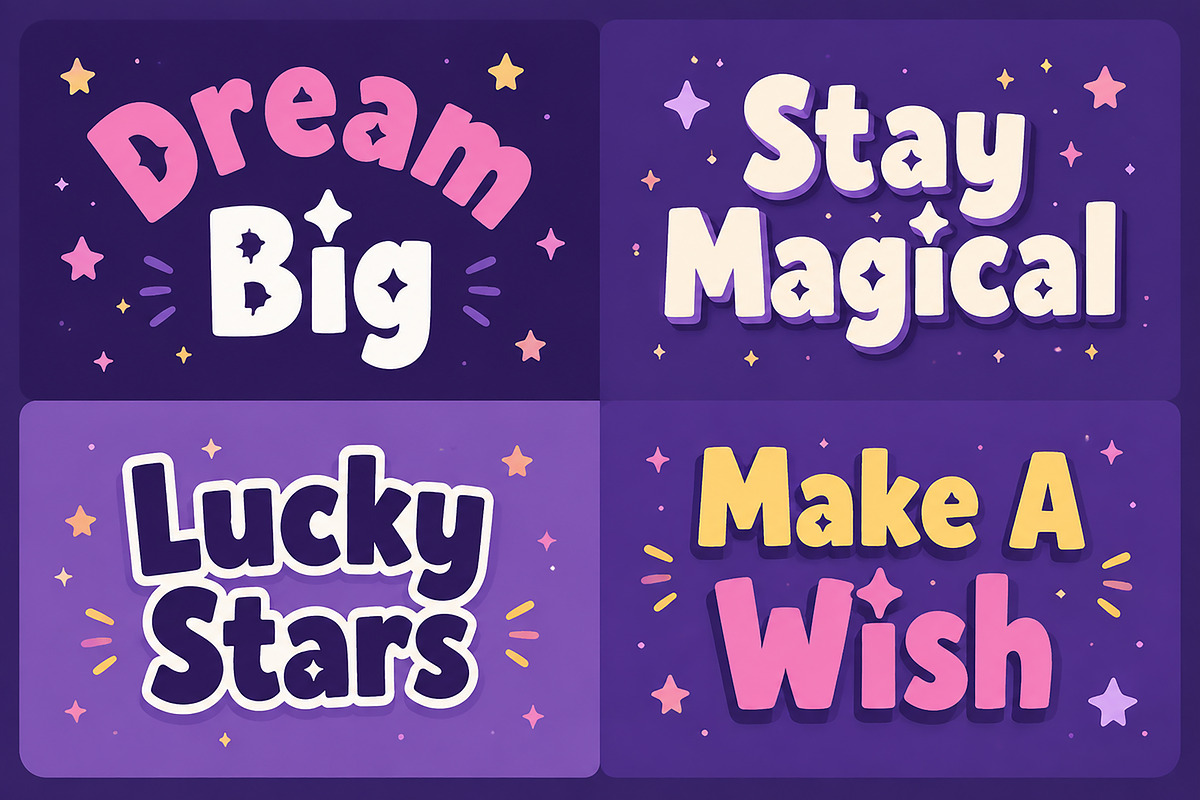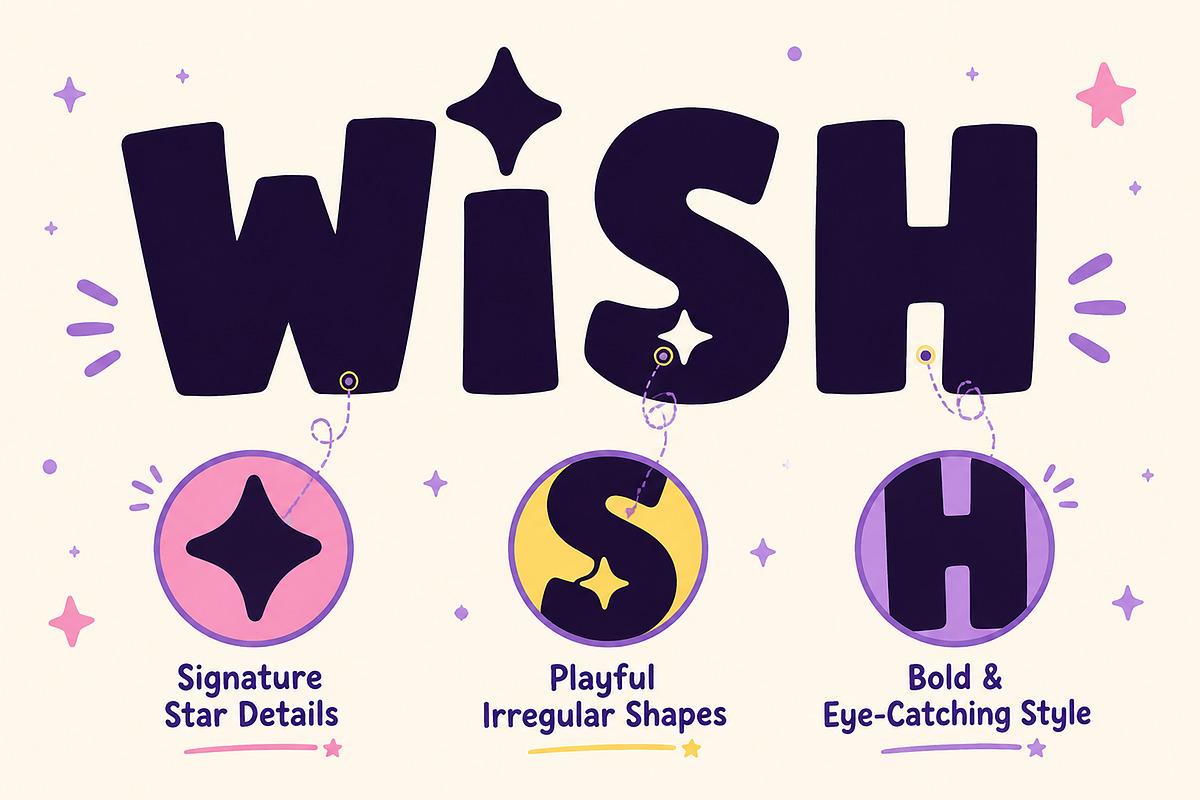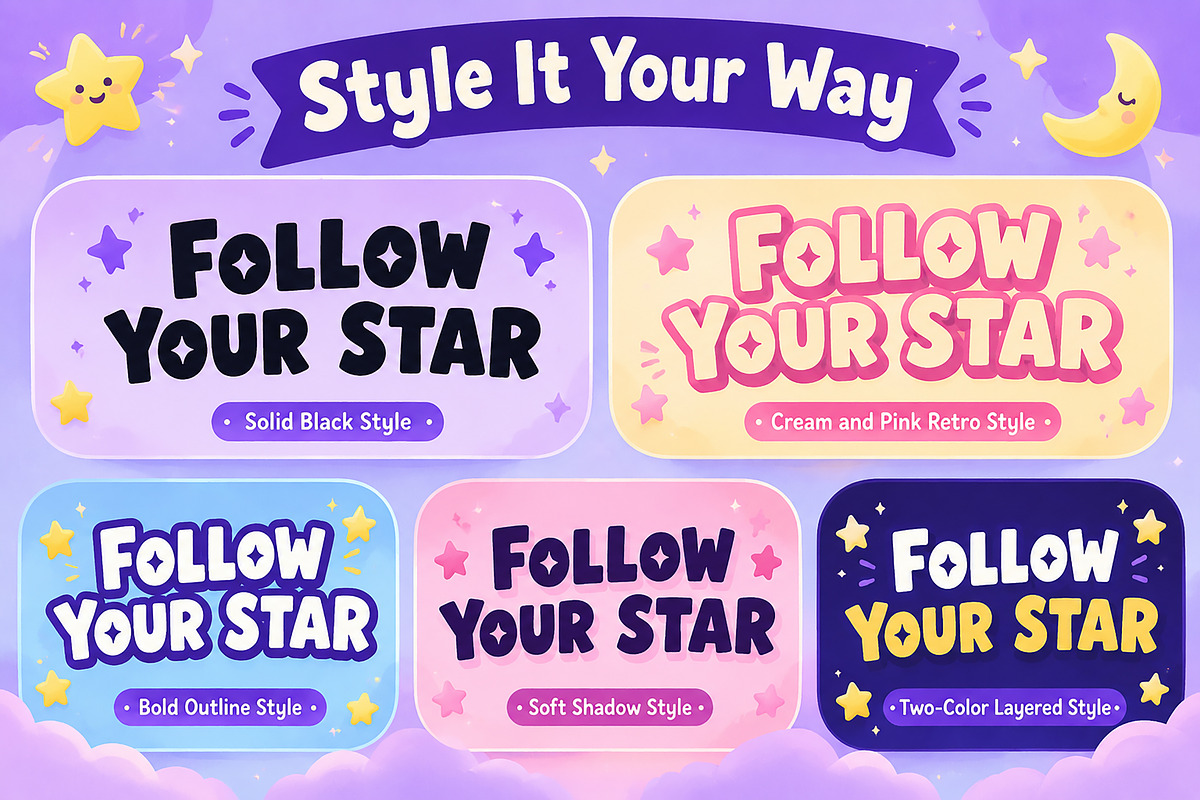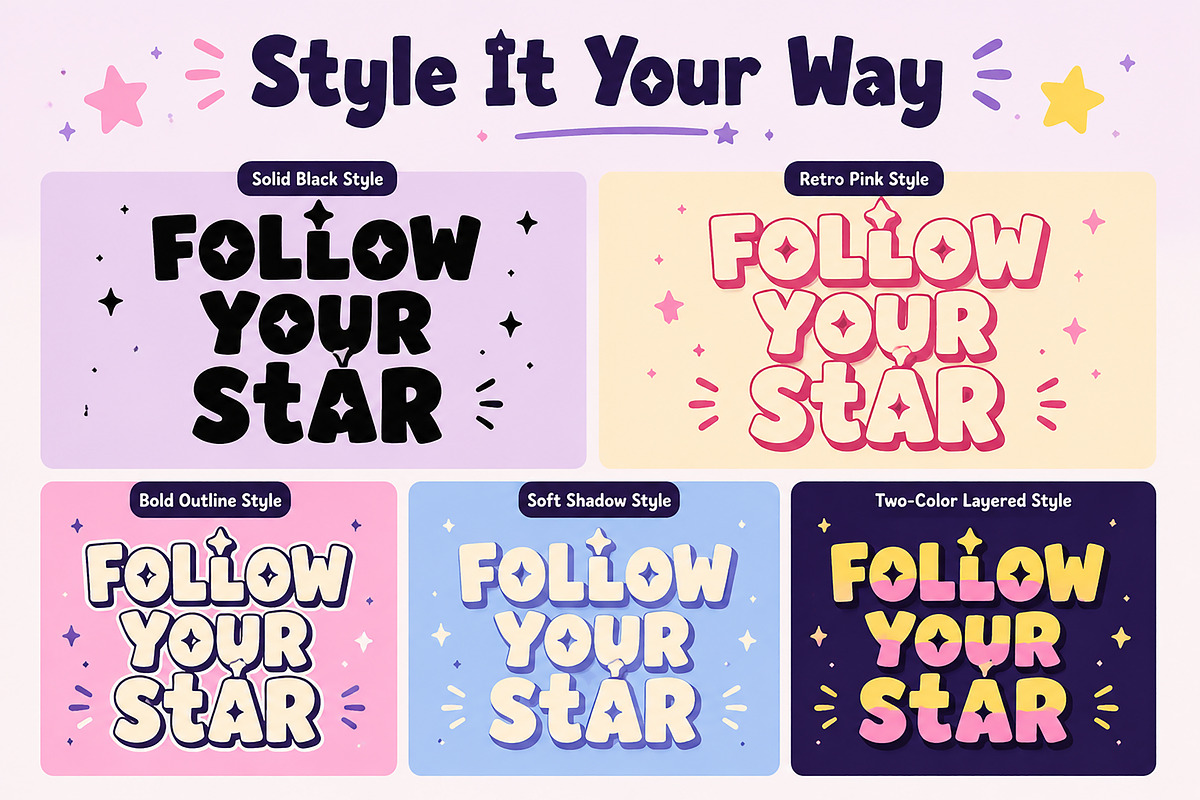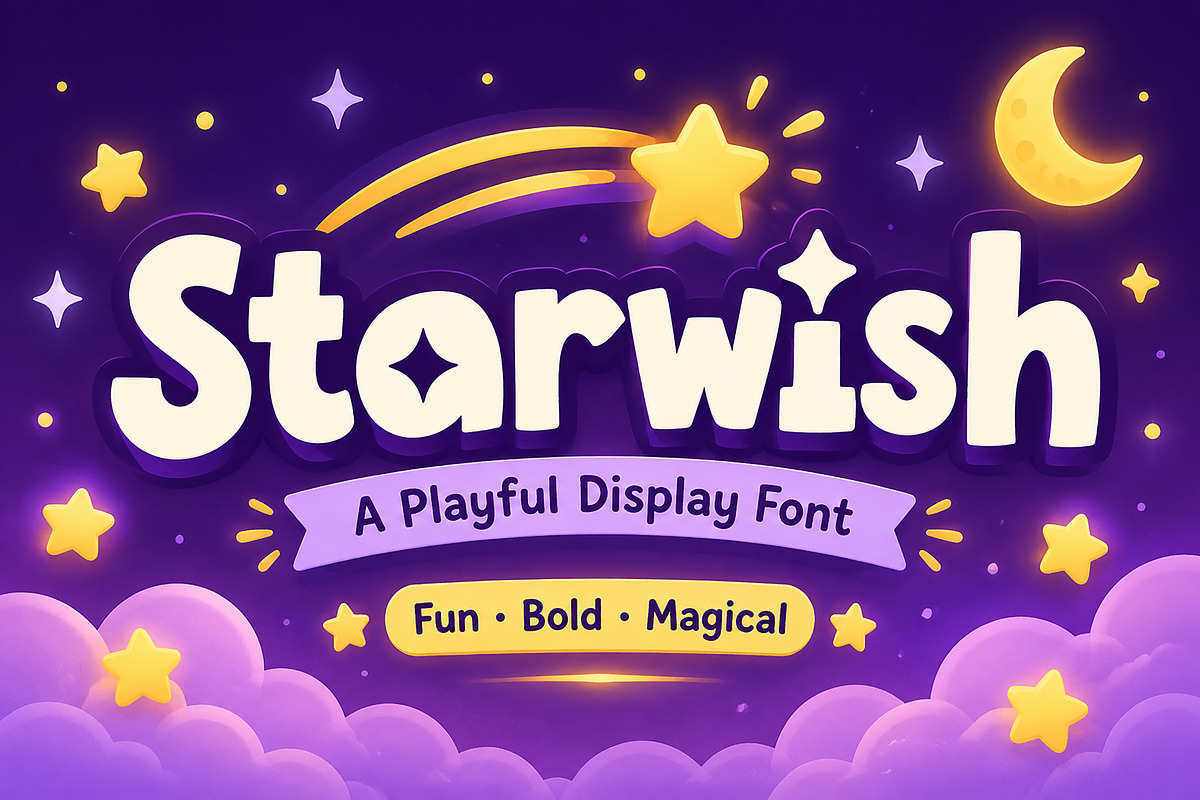
Starwish
Starwish – Playful Display Font
Bring a little magic to your creative projects with Starwish, a bold and playful display font designed to make every design stand out. Featuring charming star-shaped details, chunky letterforms, and a fun handcrafted style, Starwish is perfect for projects that need a cheerful, dreamy, and eye-catching look.
Whether you're designing branding, packaging, social media graphics, children's products, or printable designs, Starwish adds a unique personality that instantly grabs attention.
Logos
Branding
Packaging
Posters
Kids Products
Birthday Designs
Greeting Cards
Stickers
T-Shirt Designs
Invitations
YouTube Thumbnails
Cricut & Craft Projects
Quotes
Scrapbooking
Bold Display Style
Playful & Cute Letterforms
Unique Star Details
Handcrafted Look
Easy to Read
Perfect for Large Headlines
Great for Digital & Print Projects